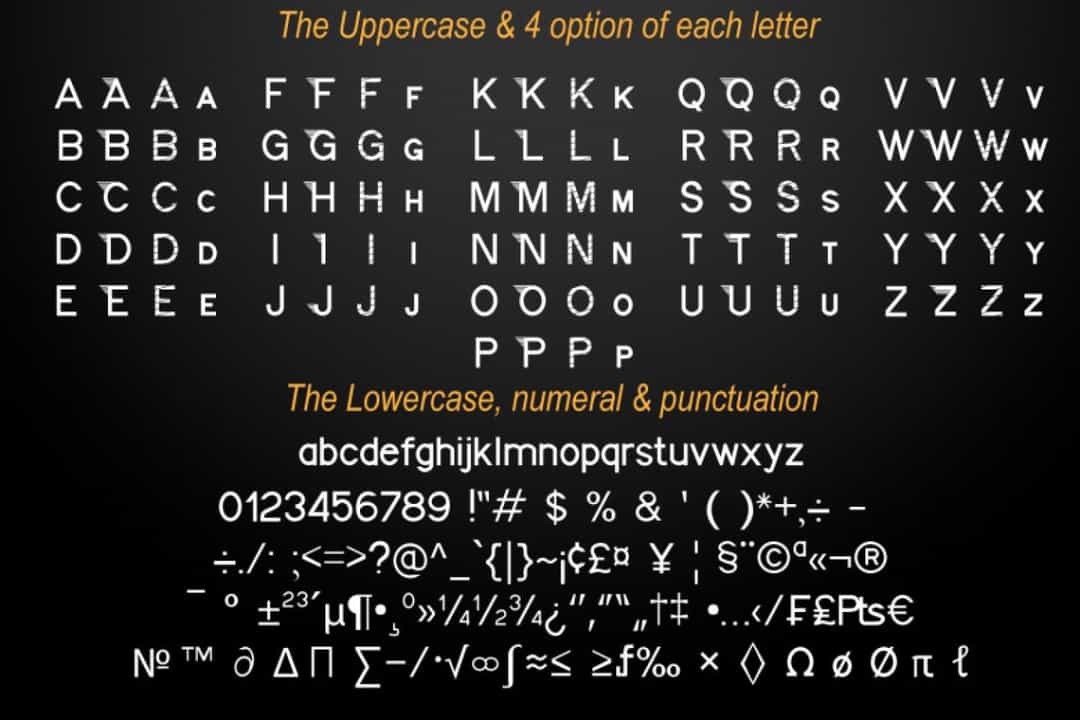
Blancos Sans Serif is an eye-catching modern, contemporary and highly distinctive display font. It makes for striking designs on flyers, posters or prints; use this font in your projects and discover its endless potential!